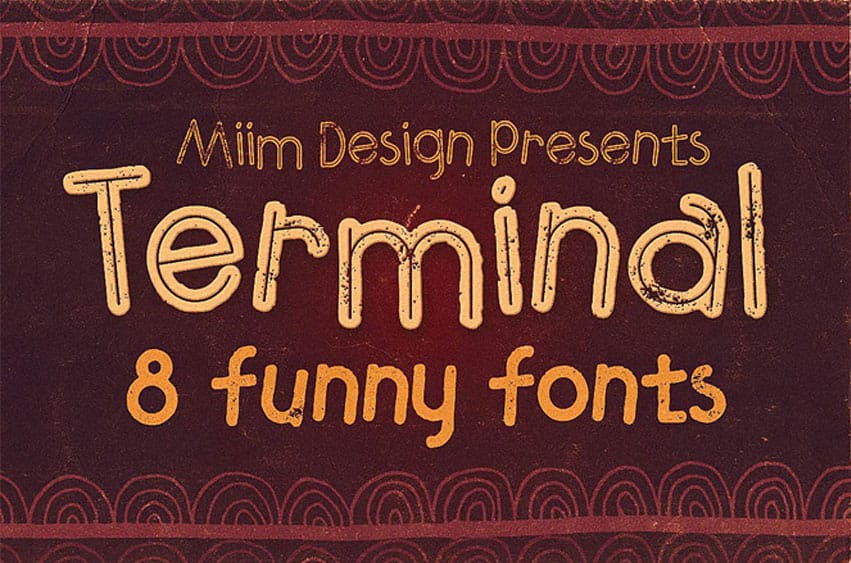
Terminal Funny Font Creative, funny & grunge font for your new projects.
Great for funny or cartoon style projects! 8 font files (otf & ttf) – regular & grunge, bold & bold grunge, inline & inline grunge, bold inline & bold inline grunge.